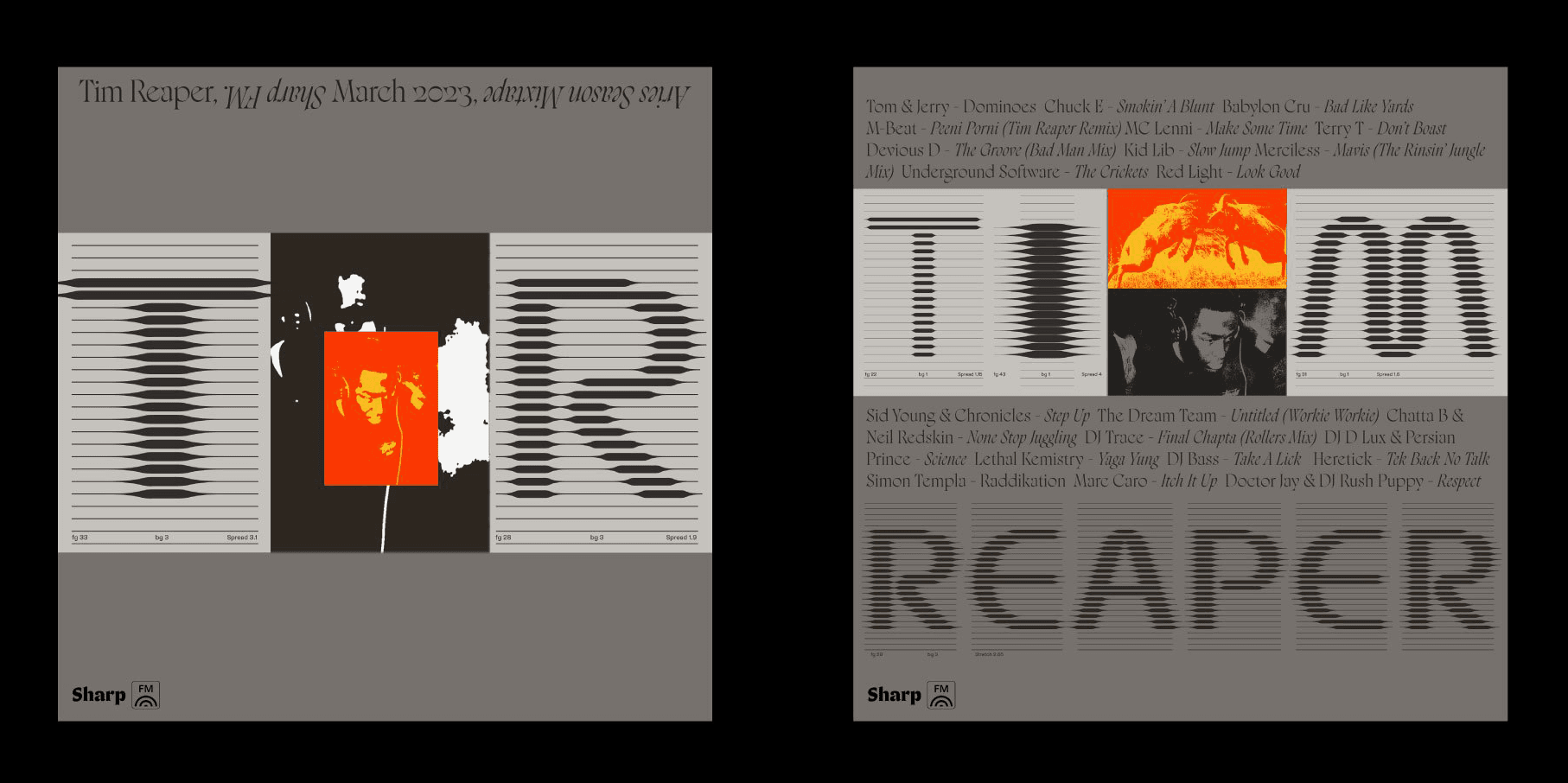
Tim Reaper’s mix for Sharp FM is a spring salutation for our retro-futuristic typeface Soraiz and the zodiac's first sign Aries. As one of the most venerated pioneers of London’s contemporary jungle revival, Reaper’s visibility in global electronic music culture feels perfunctory—this is just what happens when you put the music first, and you do it well.
Reaper displays jungle’s virtuosic syncopations and body high-inducing bass frequencies; he touches upon both classic and contemporary legends with customary deftness, zeroing in on the combustive rowdiness of the scene’s ragga subgenre. We’re primed for warmer weather.
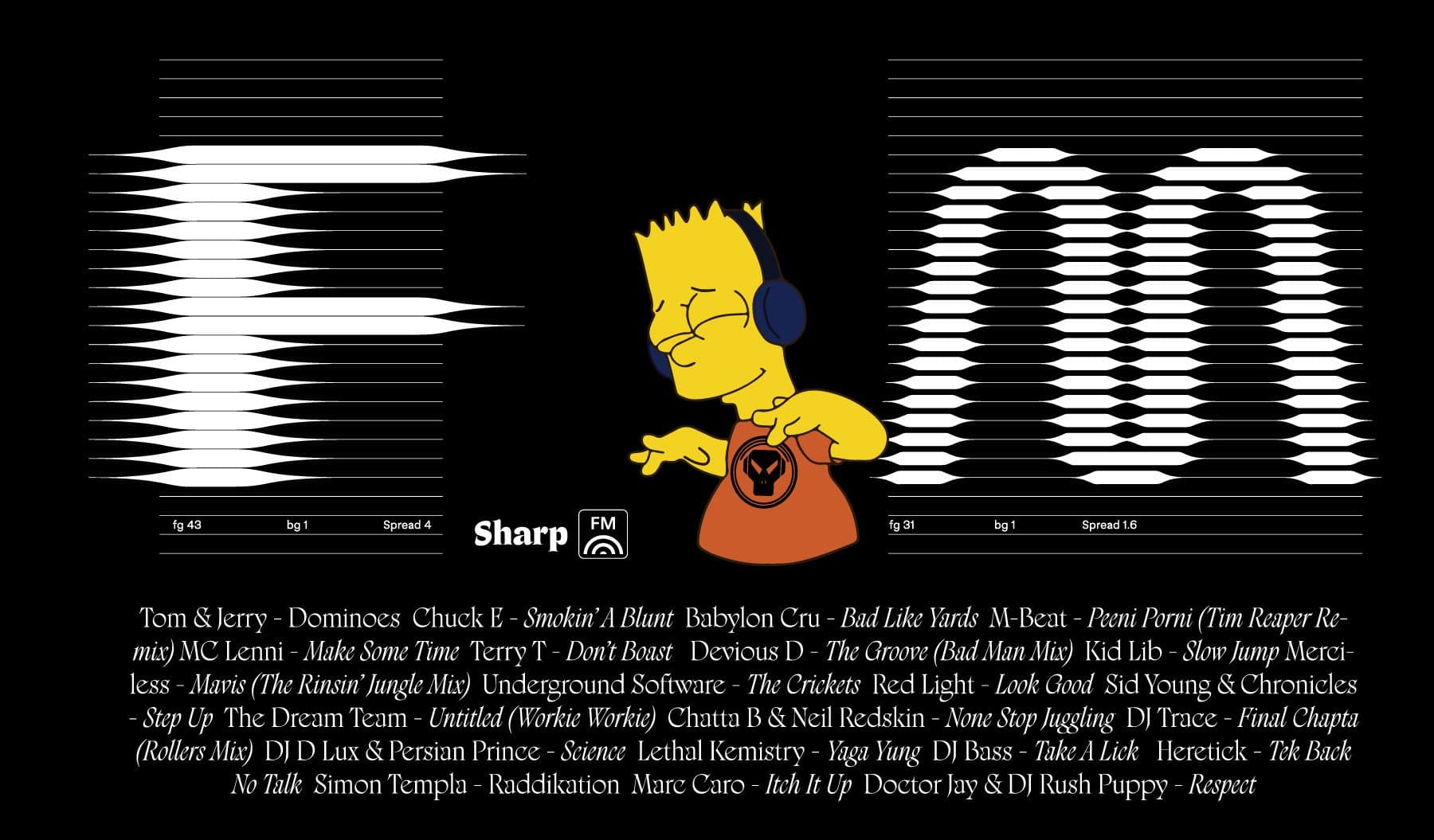
Given his prolific output, it’s obvious that Reaper works quickly, but he surprised us by sending over a completed mix before we even knew he was onboard for the project; he surprised us again by letting us know he recorded the whole thing on vinyl, which he relayed with trademark succinctness:
"This mix was recorded on vinyl, me playing some of my favourite ragga style jungle tunes from ‘93-’96, as well as some newer style ragga jungle bits, including a new remix I've done for M-Beat."
Tim Reaper is a disciple of jungle, completely self-taught, and someone we admire not just for his dexterity on the decks and in the studio, but also for his approach. He makes the case that the realm of true mastery isn’t final ascendence to some lofty peak; it is instead defined by the perpetual hunger for knowledge, undertaken with the doggedness and humility of an earnest student. Reaper works as a coder by day and manages his own growing label and club night, both called Future Retro, while juggling live gigs around the world. His deep knowledge of jungle’s history is evident in his music, and we appreciate that rather than imitate the 90s hardware setups like many of his peers, Reaper instead tracks down the actual funk and soul drum samples used by the first junglists and processes those to his own ends on his home setup. It’s both painstaking and pragmatic, and speaks to somewhat paradoxical sensibilities.
It’s a relevant occasion to show-off Soraiz, used on the cover and tracklist graphics in a compelling static-use case. Connor Davenport’s parametric typeface embodies a particular sensibility that feels forever floating in the future-past. Jungle is arguably one of the most parametric genres of music, but Reaper is deliberate in pushing the genre forward and recontextualizing a sound that crystalized somewhat perfectly during those few years in the mid-90s. If creativity is optimized within strict parameters, in Tim Reaper’s hands, the future—and history—of jungle sounds bright and ever new.
Bart is an icon of Aries energy, but his inclusion here is also a nod to Tim Reaper’s love for The Simpsons, as evidenced by the naming of one of his labels, Globex Corporation. The sharp-eyed junglist will also recognize the Metalheadz logo we photoshopped onto Bart's shirt, referencing the pioneering label started in '94 by Kemistry & Storm and Goldie; the latter was well-known for rocking Stüssy shirts, just like Reaper does today.